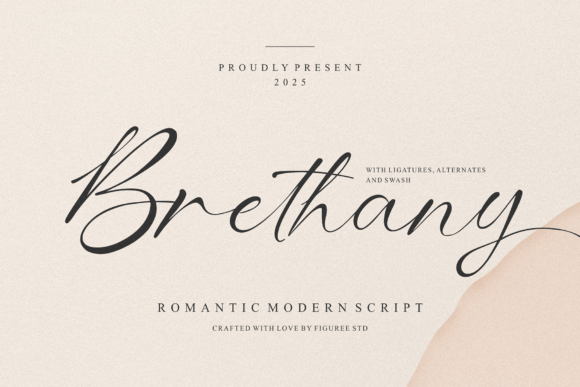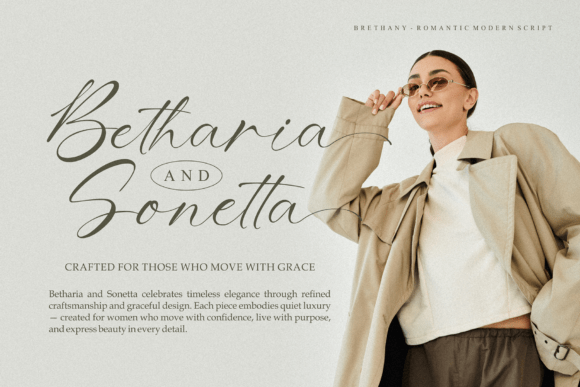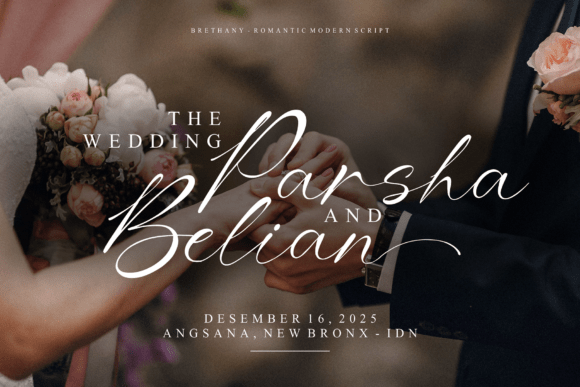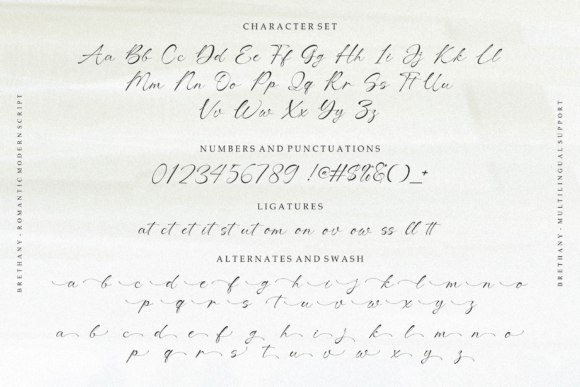
Brethany Font
Brethany – Romantic Modern Script Font for Elegant Design In design, typography is emotion turned into form. Brethany – Romantic Modern Script Font was crafted to express beauty, intimacy, and timeless sophistication. Every curve in its strokes whispers elegance, making it the perfect romantic font for wedding invitations, brand identities, greeting cards, and editorial design.